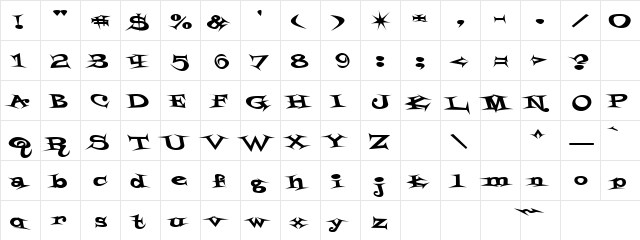
Big Bachhan Regular
Design Context for Big Bachhan Typeface
Big Bachhan is a composed and adaptable typeface that performs quietly and consistently across a wide range of design contexts.